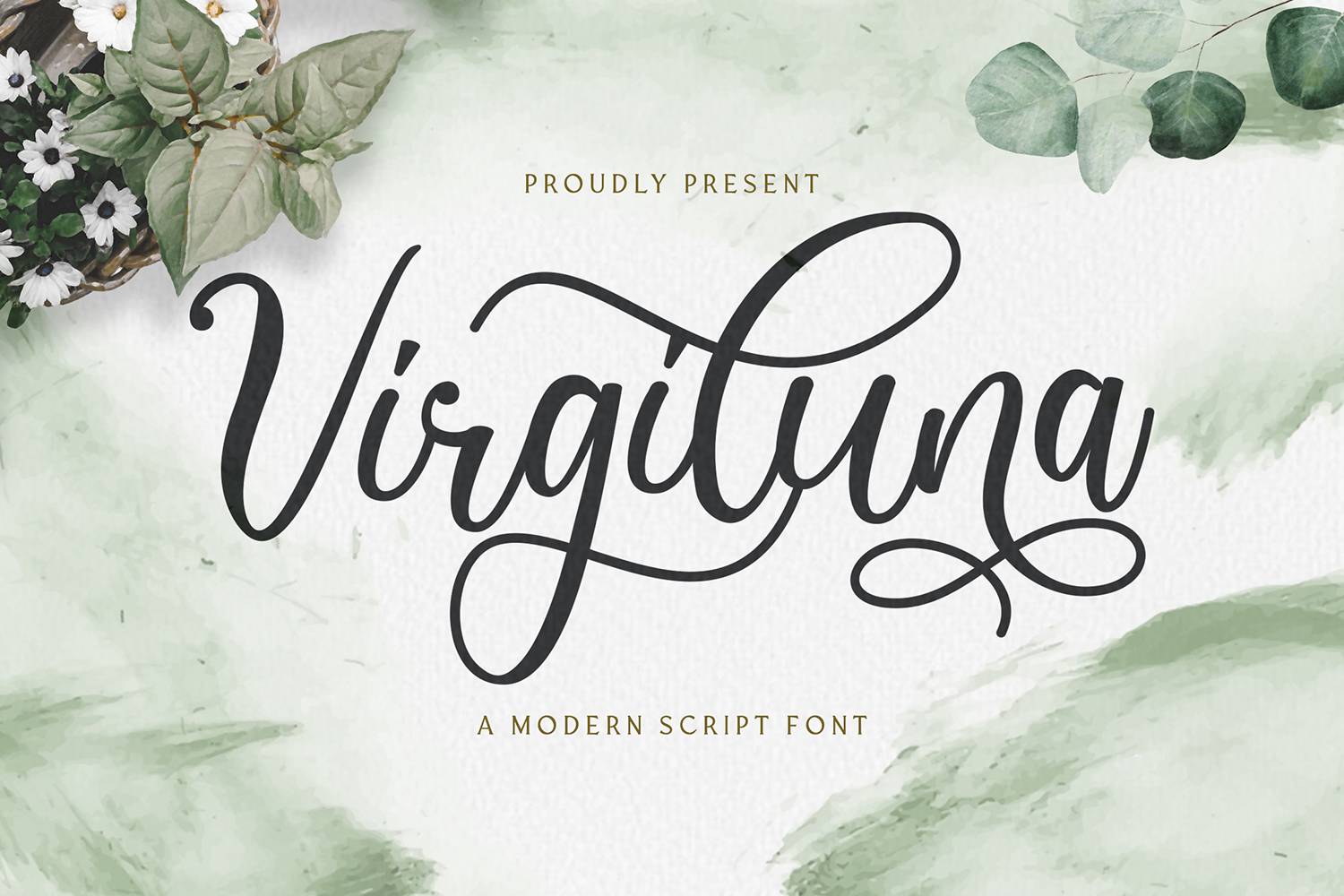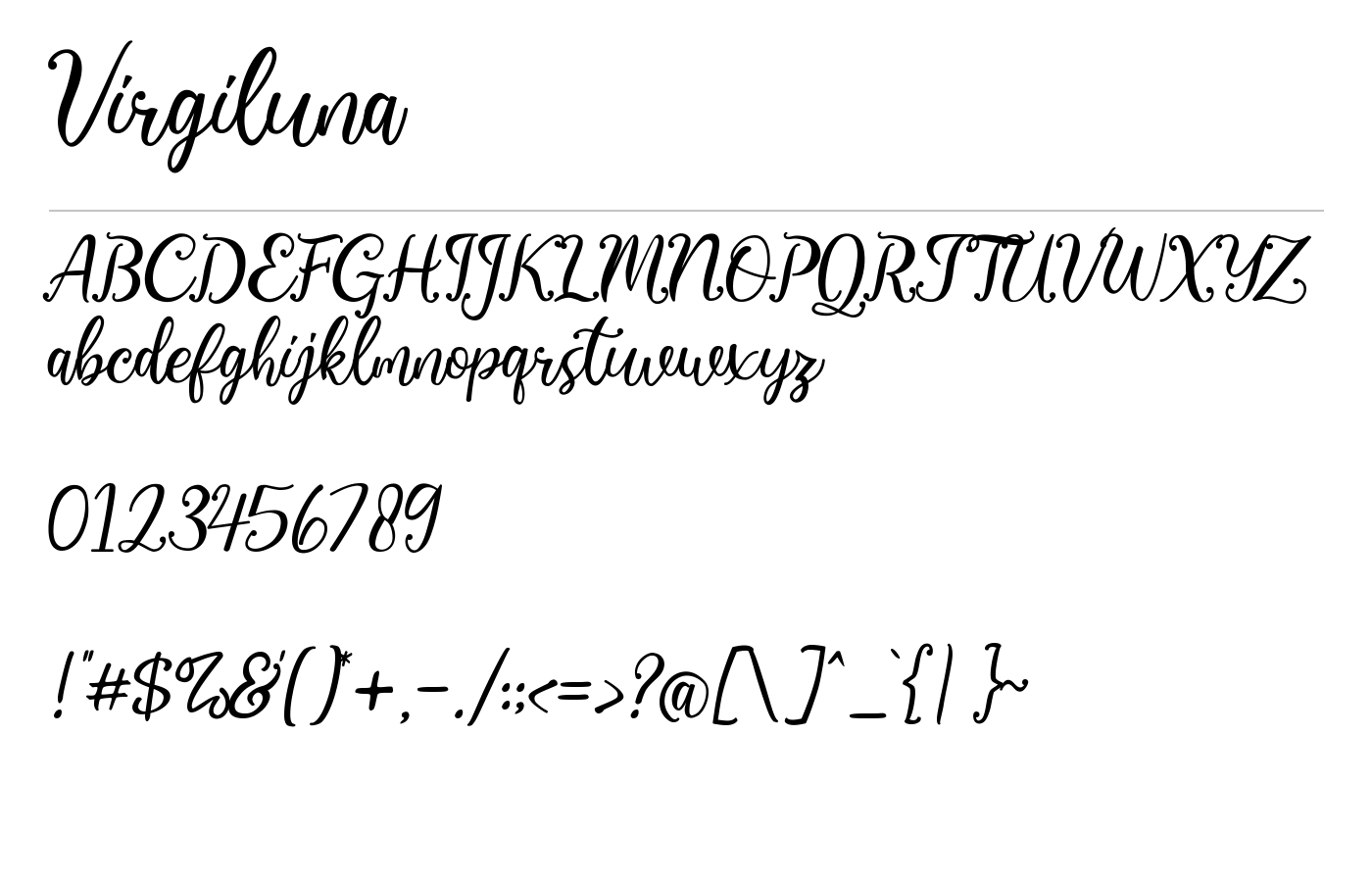
Virgiluna is a graceful script font with a smooth, flowing style that mimics elegant handwriting. It features slender, slightly tilted letterforms with subtle swashes and a charming, casual feel, making it perfect for invitations, branding, and stylish editorial designs. This font brings a warm, personal touch to projects that seek a sophisticated yet approachable look.
Virgiluna Font
About Virgiluna Font